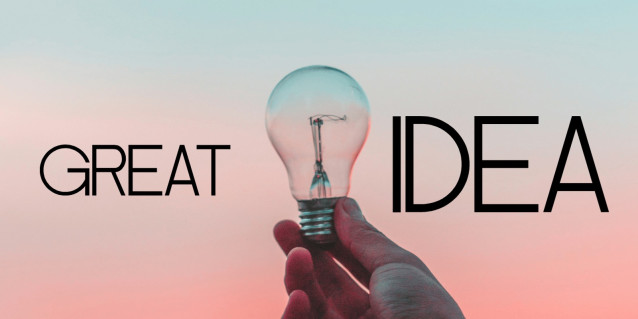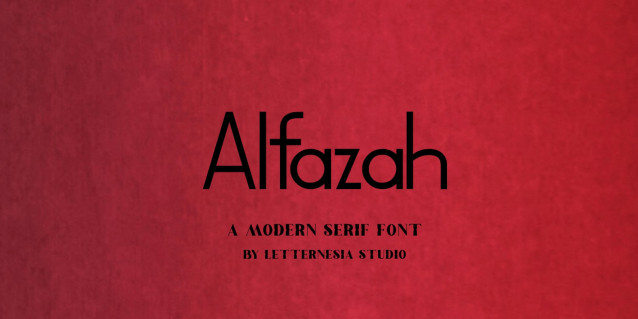
Alfaza Font
Alfaza Font is a bold and confident display font designed to make a strong visual statement. Featuring solid letterforms with a modern and dynamic style, this font instantly captures attention and delivers impact. Perfect for logos, headlines, branding, posters, packaging, social media graphics, and promotional designs, ALFAZA provides a powerful presence while remaining clear and readable. Its strong structure and expressive character make it ideal for projects that demand a modern, striking, and professional look. ALFAZA is the perfect choice for designers seeking a display font that is modern, expressive, and impactful.